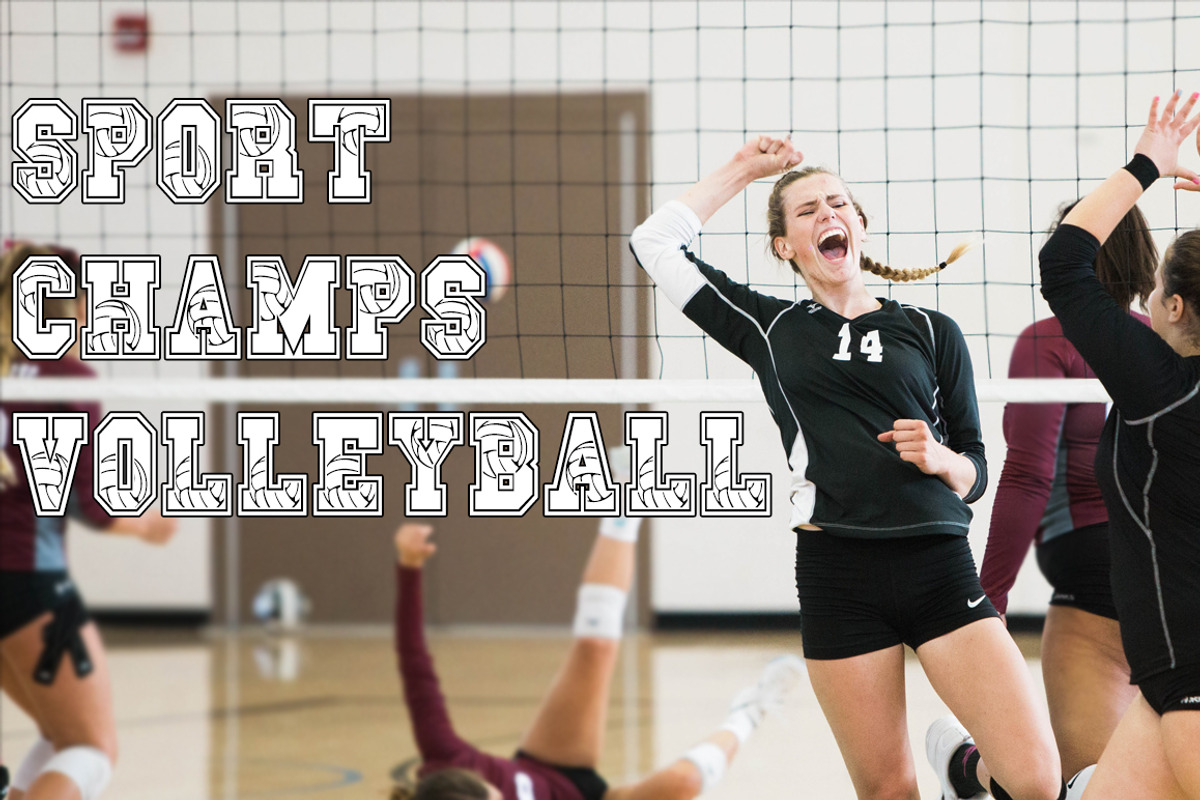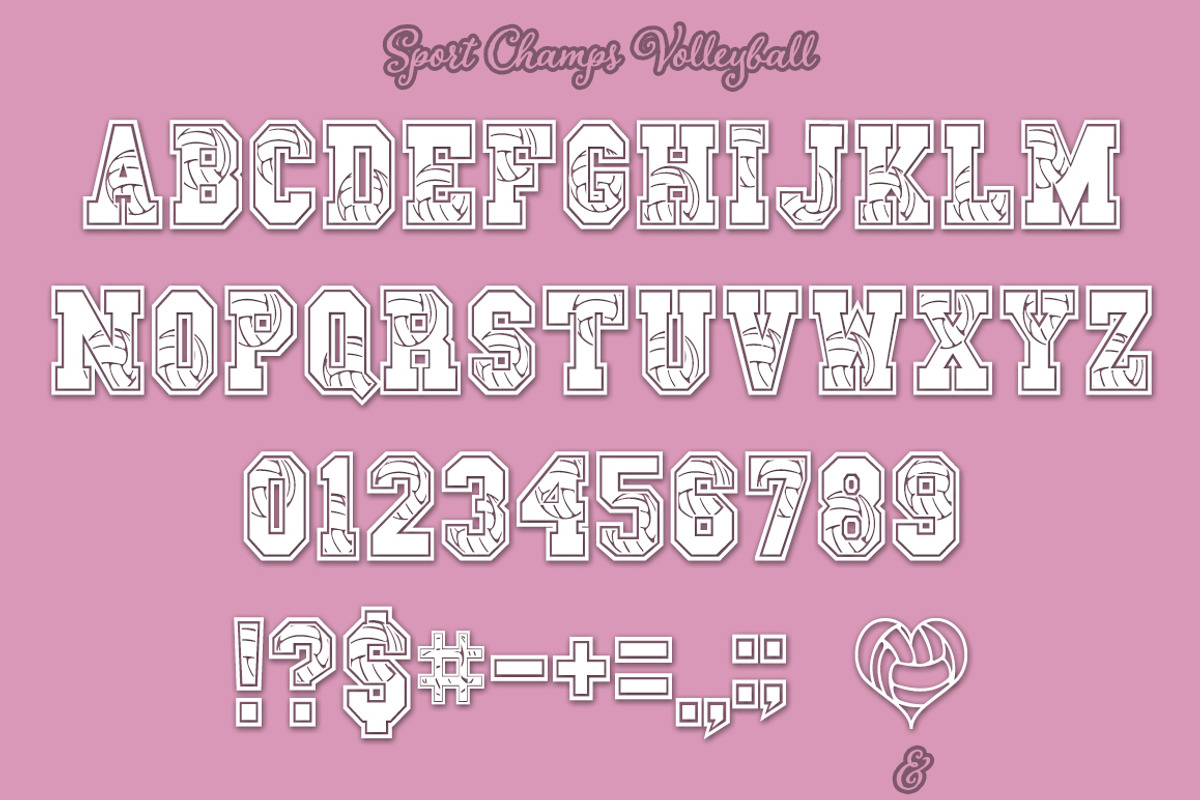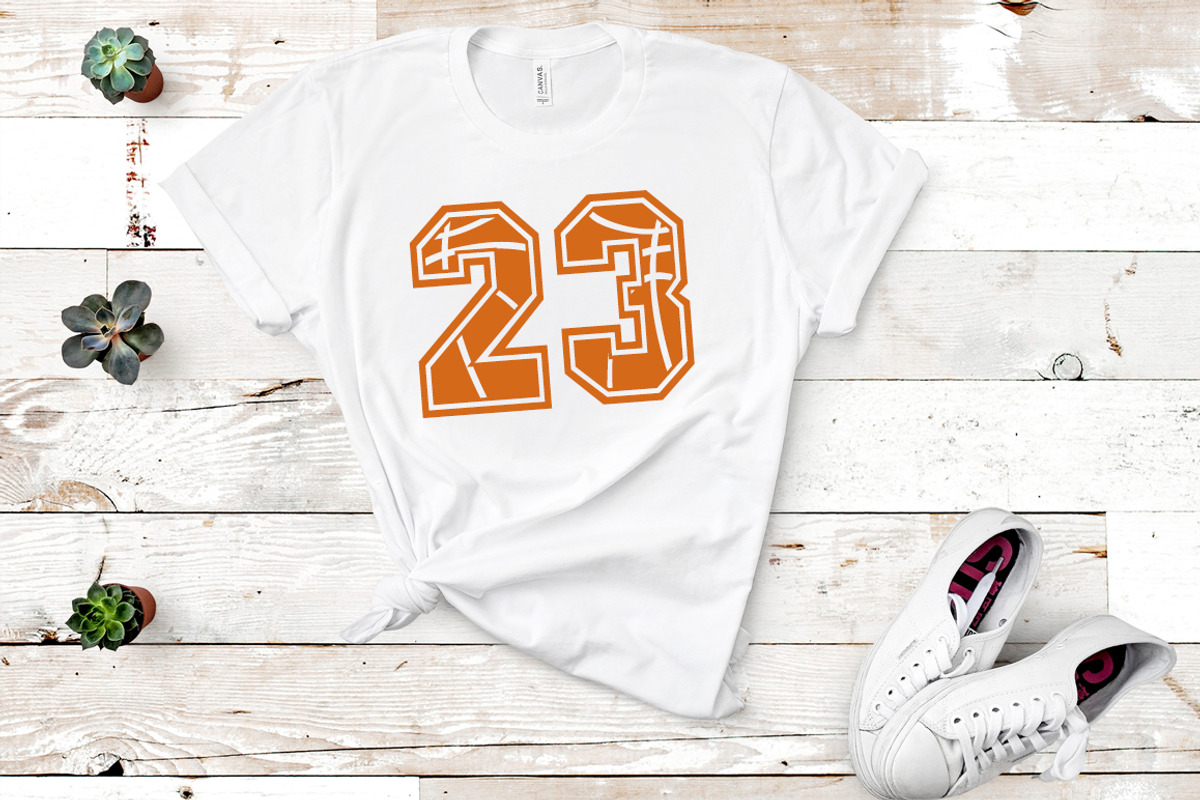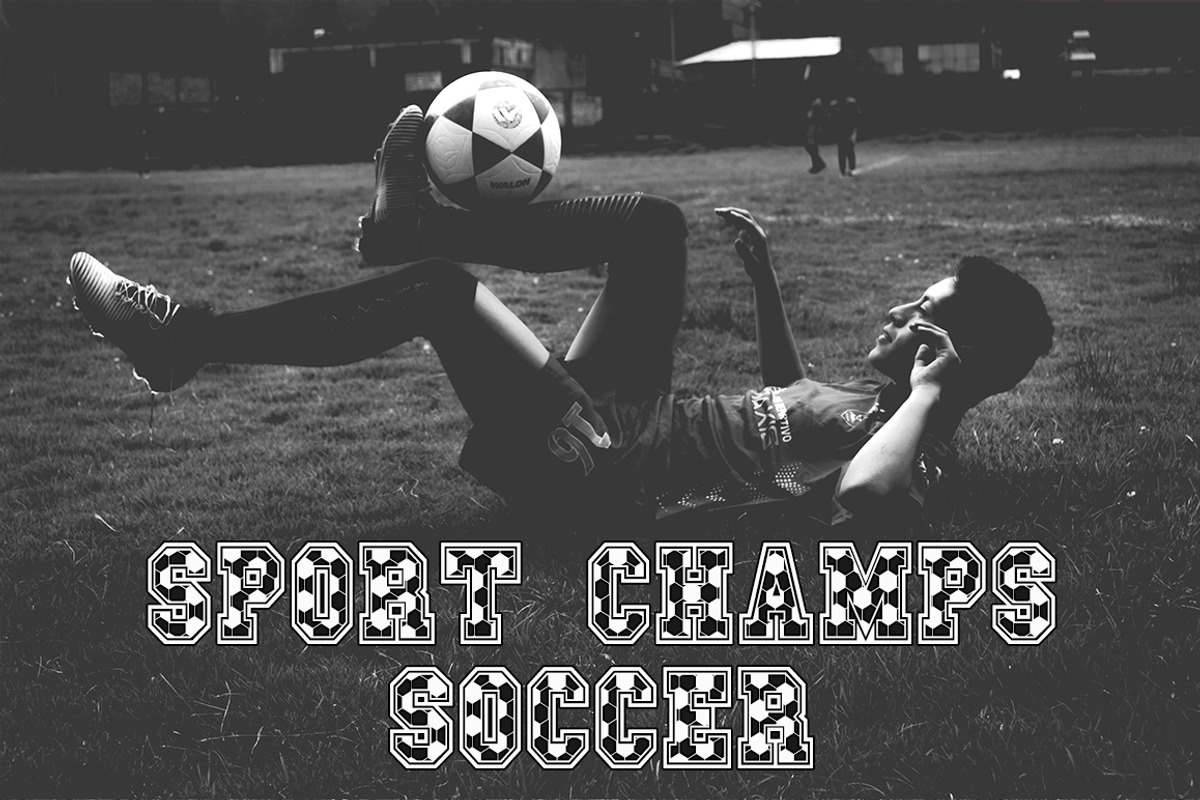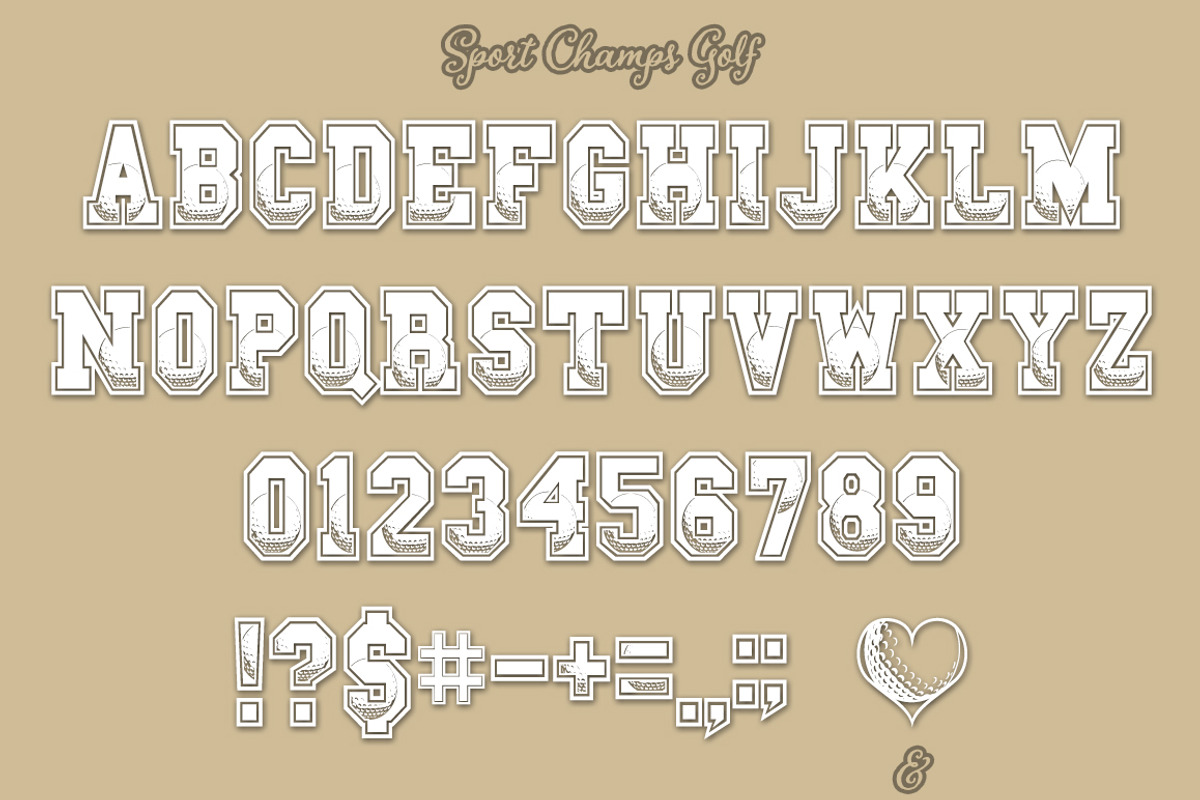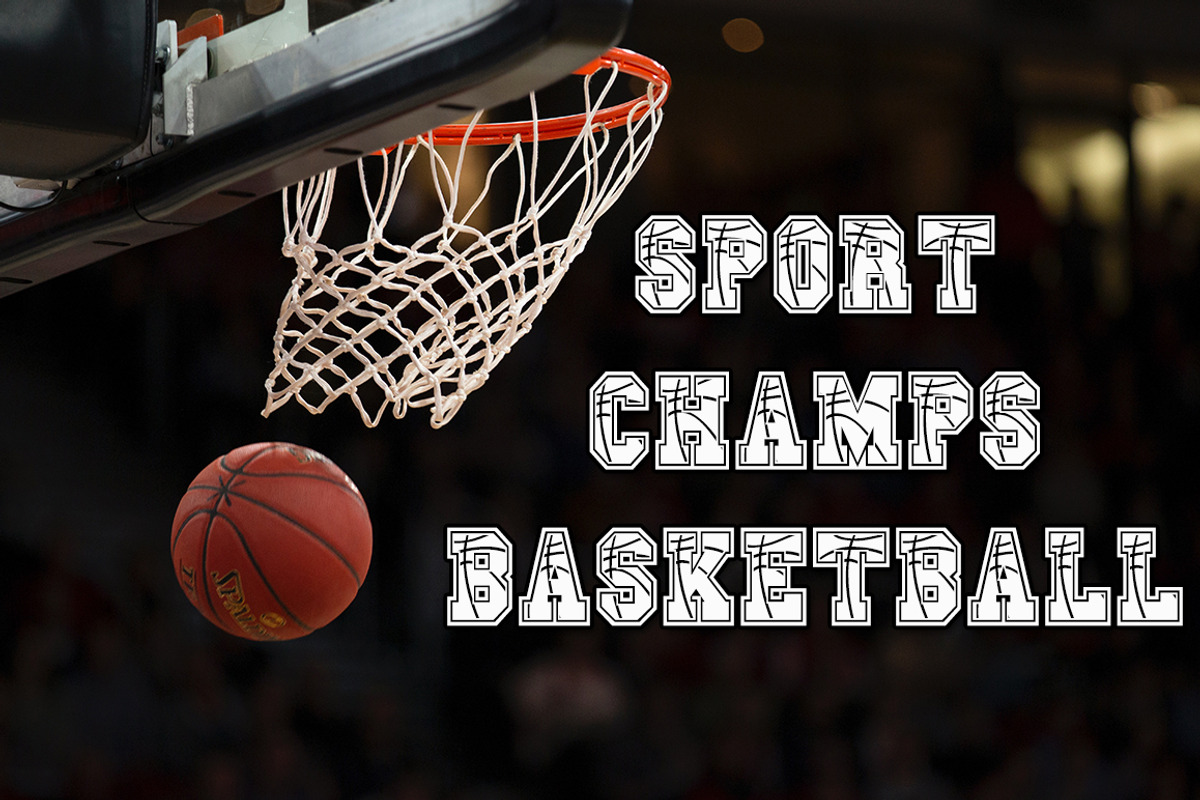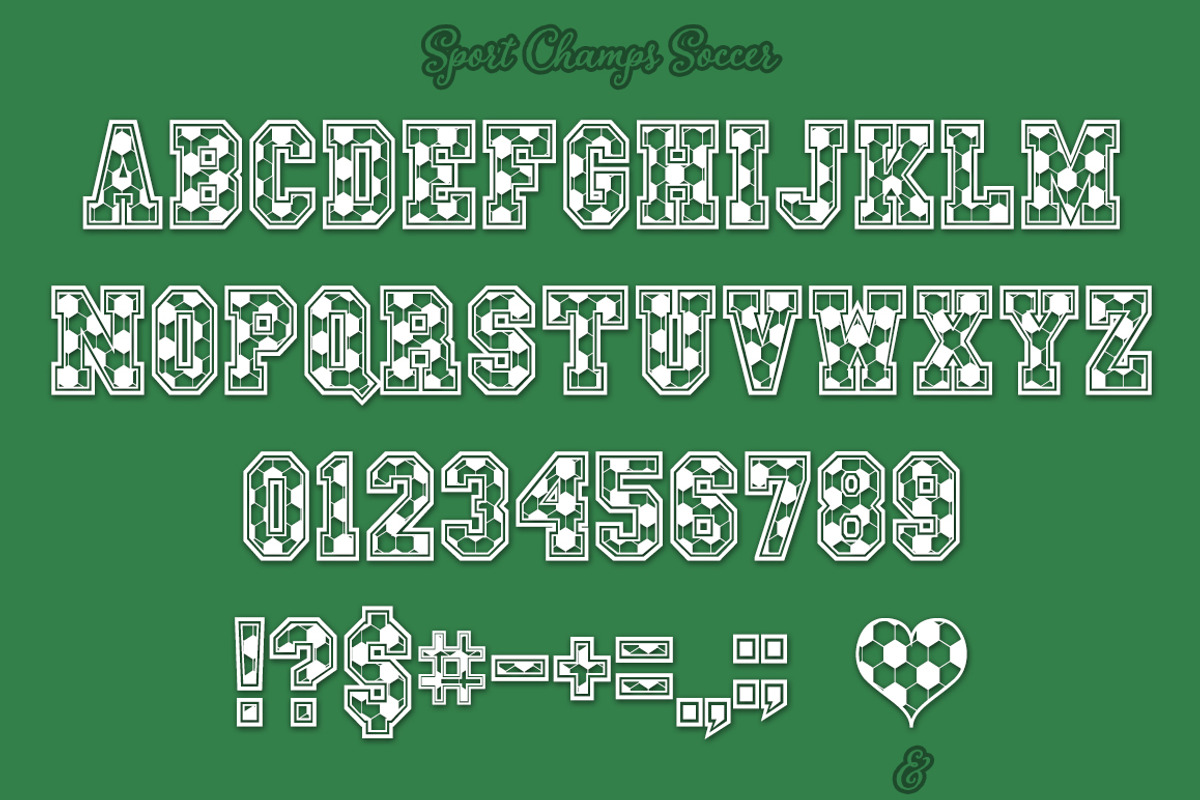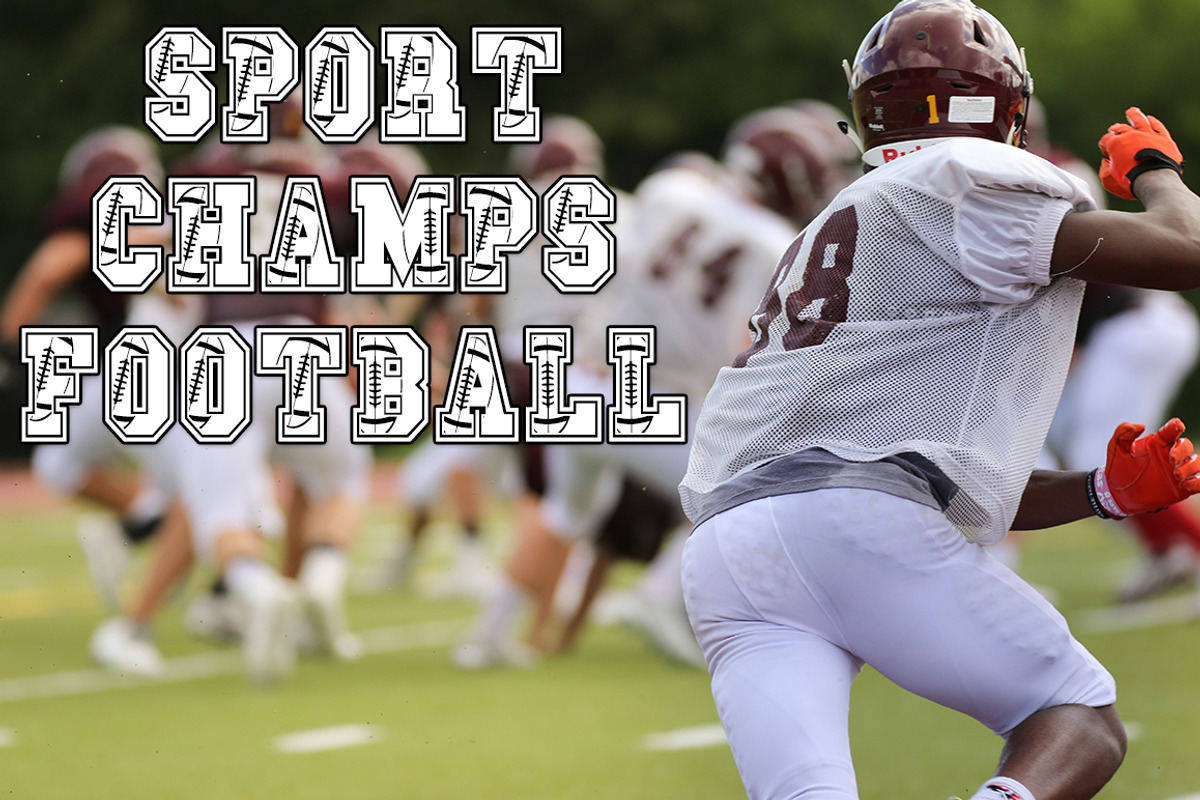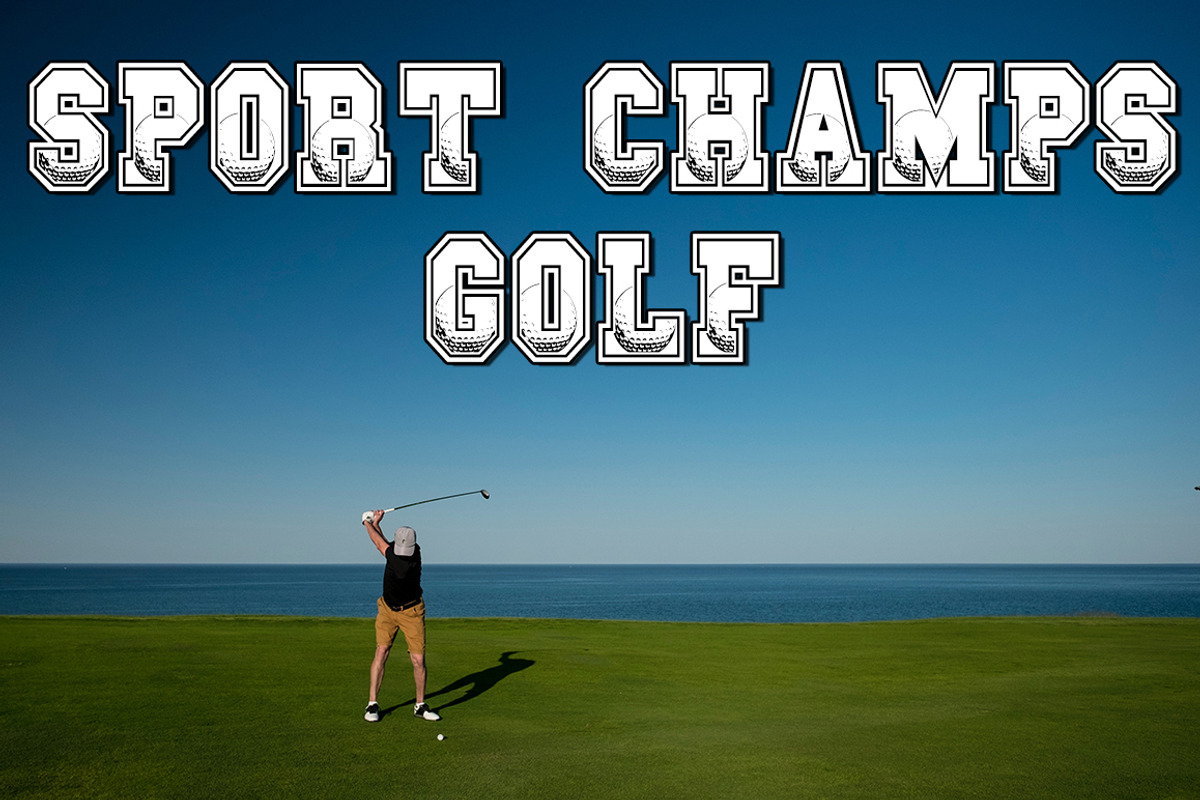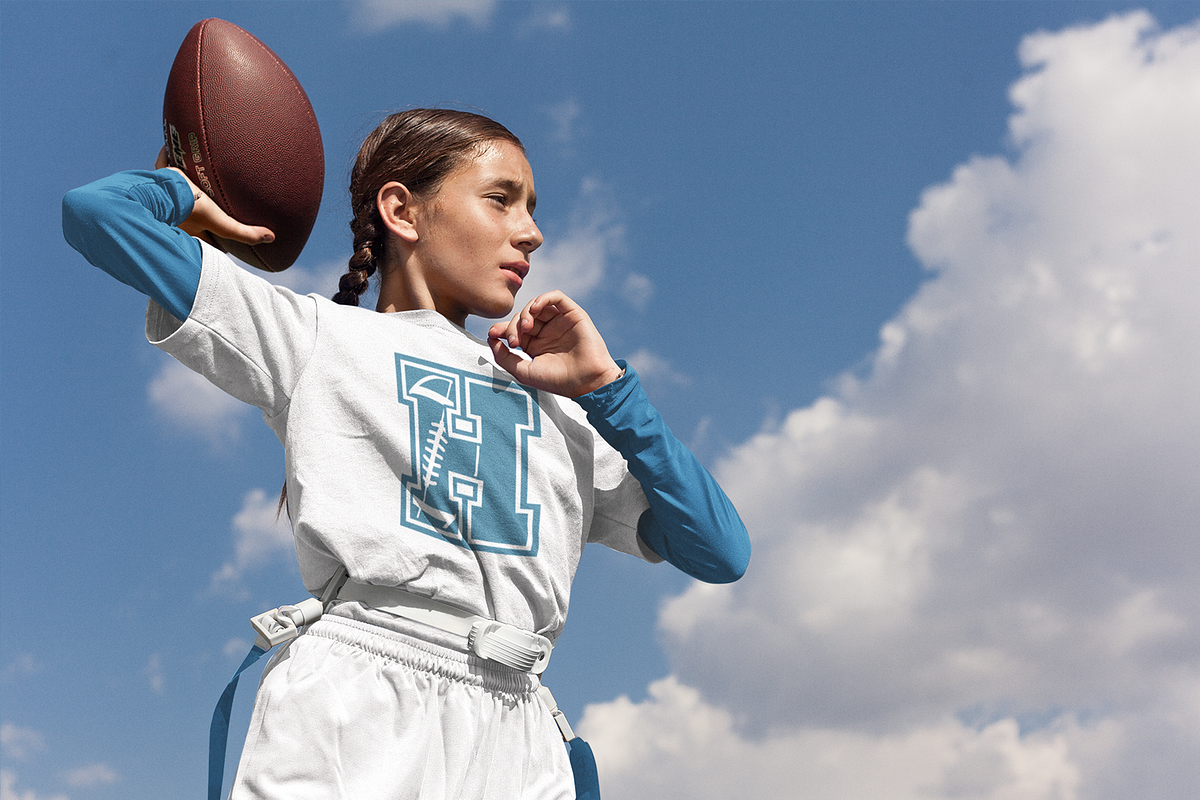
Sports Font Pack | Varsity Fonts
If you had seen my fonts before, you know that I like creating playful fonts. This font is no different.
It is a handcrafted font created from scratch, using as little points as possible to ensure you get the best results with minimum difficulty. After I created the regular font version I wanted to create a couple of extra styles, so the font would be as versatile as possible.
- All the fonts include uppercase A-Z letters, numbers and limited punctuation. Extra heart ornament can be accessed by using the “&” glyph.